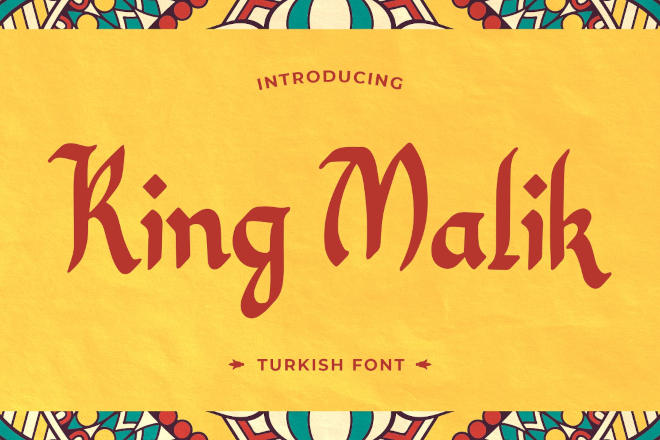
Aslah – Modern Turkish Font
Aslah is a modern Turkish font boasting an array of features including uppercase and lowercase letters, numbers, symbols, ligatures, alternates, and multilingual support. This unique and elegant font, available in OTF, TTF, WOFF, and WOFF2 files, is perfect for various projects, particularly those with Turkish themes or branding logos.
Noytur – Turkish Style Arabic Font
Discover Noytur, a distinctive Turkish-style Arabic font that perfectly blends the richness of Middle Eastern aesthetics with the sturdiness of a sans-serif typeface. With its superior readability and ethnic appeal, Noytur is ideal for headlines, branding, artsy posters, religious events, and more. Equipped with a font family for titles and texts, this font can effortlessly enhance any design project.
Ankara – Classic Turkish Style Font
Ankara is a beautiful typeface combining the tradition of Ankara with a luxurious modern style. It also has a Turkish-style vibe. The font is perfect for branding, logos, and elaborate invitations. It comes in OTF, TTF, WOFF, and SVG formats, including alternates and ligatures.
King Malik – Turkish Font
King Malik is an attractive display font that captures the essence of Turkish style. Perfect for branding, logos, Turkish-themed projects, and more, it offers uppercase, lowercase, numerals, symbols, punctuation, ligature, and alternate options with multilingual support, providing a versatile tool for your creative projects. Available in OTF, TTF, WOFF, and WOFF2 formats, it brings a distinctive touch to any design.
Syukria – Arabic Style Turkish Font
Syukria is a charming Arabic-style Turkish typeface that combines the elegance of Arabic calligraphy with digital technology’s adaptability. Bearing graceful curves and intricate details, it offers modern readability and versatility for headlines, body text, and decorative purposes.
Syukron – Turkish Style Font
Syukron is a Turkish-style Arabic display font that is versatile and creatively designed for various applications. It’s perfect for multiple design projects, ranging from logos and branding to advertising and product design or even stationery and cover titles. The font supports uppercase and lowercase letters, numerals, punctuation and has multilingual support.
Godysun – Creative Turkish Font
Godysun is a versatile Turkish font that blends modern elegance with traditional Arabic style. Whether you’re aiming to incorporate an Islamic decorative design or simply want a touch of Middle-Eastern flair, Godysun facilitates a range of themes.
Mastolleh – Ramadan Typeface
Mastolleh is a versatile Turkish font. It’s especially useful for handling various Arabic and Islamic-themed design projects. The font comes with an extensive set of 847 glyphs that include uppercase and lowercase letters, numerals, and punctuation marks. It supports OpenType features and multiple languages from Latin to Vietnamese.
Malleknas – Arabic Turkish Display Font
Malleknas is an engaging Arabic-Turkish display font that embodies the artistry of Arabic calligraphy. This typeface is at once intricate and elegant, lending sophistication and cultural depth to designs. Ideal for everything from branding to digital artwork, Malleknas features upper and lowercase letters, symbols, ligatures, alternate characters, and much more.
Koweti – Clean Turkish Font
Koweti is an exceptional Turkish font that exudes upper-class style. Fashioned to enrich your designs with a tinge of affluence and distinction, this premium Arabic style font offers unique letterforms, rendering versatility to meet your creative demands.
Kiladisk – Unique Turkish Font
Kiladisk is a unique Turkish font featuring visual elegance, smooth curves, and beautiful ligatures, designed to flatter any project – from invitations to logos, packaging, cards, and labels. Offering multilingual support, this font is a great choice for adding a classical flair to your professional and personal creative projects.
Qojarun – Modern Turkish Font
Qojarun is a modern Turkish font that beautifully merges the Middle Eastern style with contemporary design. This versatile typeface, enriched with Arabic-style characters and elegant calligraphy, lends an authentic touch to various design projects ranging from logos to posters.
Alisyah – Decorative Turkish Font
Alisyah font, inspired by Islamic themes, showcases graceful curves and aesthetic appeal in each character. This Turkish font not only brings visual allure but also pairs harmoniously with diverse fonts, making it ideal for modern Islamic-themed design projects. It enhances text compositions, delivering deeper meaning and enchantment.
Thollem – Modern Islamic Font
Thollem is a magnificent modern Islamic font rooted in Turkish calligraphy. Its artistic design shines in branding materials, greeting cards, posters, and more. Equipped with alternatives and ligatures, Thollem comes with PUA-encoded characters and multilingual support.
Qobliyah – Arabic & Turkish Font
Qobliyah font is a beautifully crafted Turkish and Arabic typeface. Its luxurious design makes the font a great choice for designing beautiful logos, signage, and various other branding designs for jewelry, hotels, and other high-end businesses.
Arasim – Turkish Style Font
Arasim is a Turkish-style font that stands as a testament to exceptional craftsmanship. Every stroke, curve, and ligature has been meticulously designed, maintaining optimal legibility without compromising on aesthetic appeal. With both uppercase and lowercase characters, numbers, and punctuation, it offers versatility in use.
Rowit – Arabic Turkish Font
Rowit is an Arabic-style Turkish font that can immediately impart a sense of luxury and prestige to your designs. With its innovative typeface meticulously crafted for flexibility and precision, it includes hundreds of glyphs to help shape your design vision to any occasion. It’s a top choice for achieving an impressive harmony in your design projects.
Labaniy – Stylish Turkish Font
Labaniy is a stylish Turkish font that encapsulates the enchanting spirit of Arabic calligraphy. Designed with intricate details and graceful curves, it adds a touch of cultural elegance and authenticity to various design projects whether for branding, editorial layouts, or digital artworks. Labaniy offers broad functionality with uppercase, lowercase, numerals, symbols, and more.
Best Free Turkish Fonts
Turkish Kebab – Free Turkish Font
This is a free font that comes with a stylish letter design inspired by Turkish typography. The font features a modern freestyle design that will fit in perfectly with various title and heading designs.
Turkeyes – Free Turkish Font
This free Turkish-style font comes with a beautiful Bohemian-style letter design that blends vintage elements to create a unique look and feel. It’s perfect for everything from t-shirt designs to greeting cards and more.
Turkey – Free Turkish Font
If you’re looking for a fun and playful font with a Turkish-themed design, this font is perfect for your project. It features a casual and playful letter design that will look great on education and kids-themed projects.
Turkey Script – Free Turkish Font
Another free font with a Turkish vibe. It features a set of script letters that offers an elegant look for your design projects. It’s free to use with your personal projects.